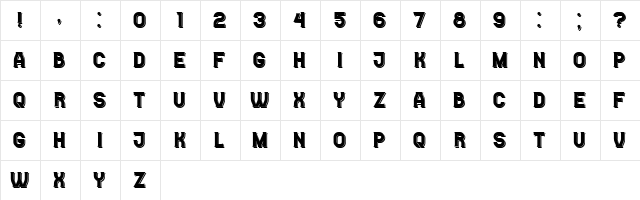
Casino Flat Shadow Regular
Design Context for Casino Flat Shadow Typeface
Casino Flat Shadow is built around its visual character rather than neutral utility — its distinctive forms are designed to make an impression at display sizes.
Font Pairing: Pair with a clean neutral sans-serif for body copy to let Casino Flat Shadow's character lead without overwhelming the composition.
Pro Tip: Treat Casino Flat Shadow as the centrepiece of your typographic hierarchy. One strong heading set in a decorative face can carry an entire layout.